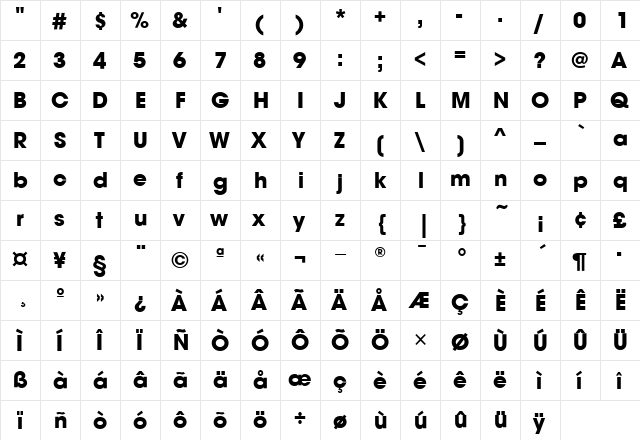
AvantGardeMdITC Regular
Design Context for AvantGardeMdITC Typeface
AvantGardeMdITC offers clean, dependable letterforms without strong stylistic allegiance, making it a practical choice for designers who need flexibility.
Pro Tip: Pair AvantGardeMdITC with a font of contrasting weight or personality to build a more expressive typographic hierarchy.